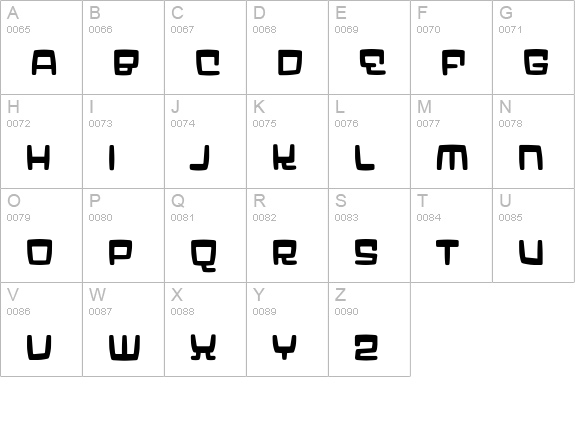
Elektron-Medium Font Details
Elektron-Medium is a balanced, medium-weight variant in the Elektron typeface family \xE2\x80\x94 well suited to sub-headlines, navigation, and balanced editorial work.
Elektron-Medium font is a sleek and modern typeface that exudes sophistication and versatility. With its clean lines and balanced proportions, Elektron-Medium is perfect for a wide range of design projects, from branding to web design to print materials. The font's medium weight strikes the perfect balance between elegance and readability, making it suitable for both headlines and body text. Its contemporary aesthetic adds a touch of professionalism to any project, while still maintaining a sense of approachability. What sets Elektron-Medium font apart is that it is not only stylish and functional, but also free to download. You can easily access this high-quality font at FontsMarket.com, making it a valuable addition to your font library without breaking the bank. Don't miss out on the opportunity to elevate your designs with Elektron-Medium font today!